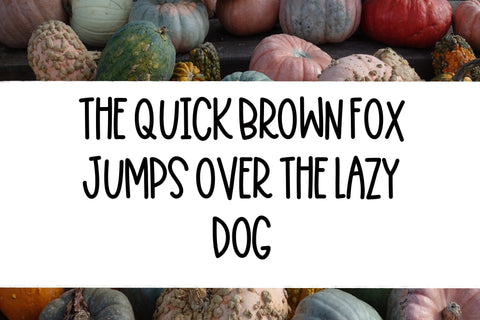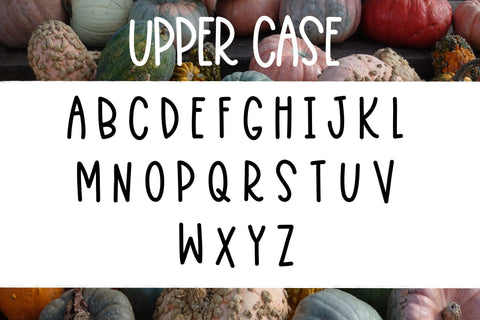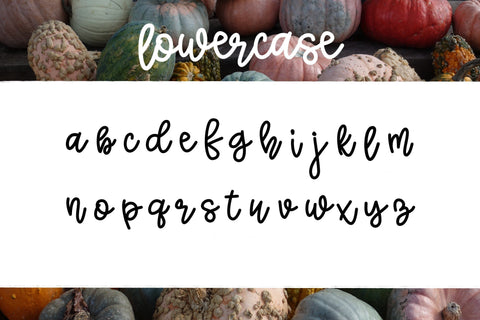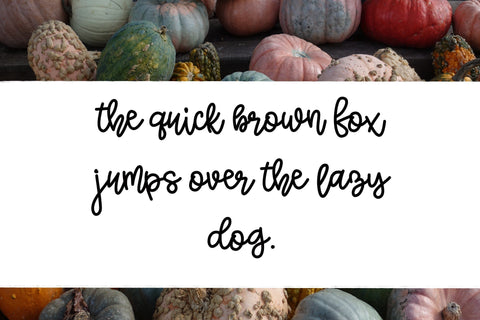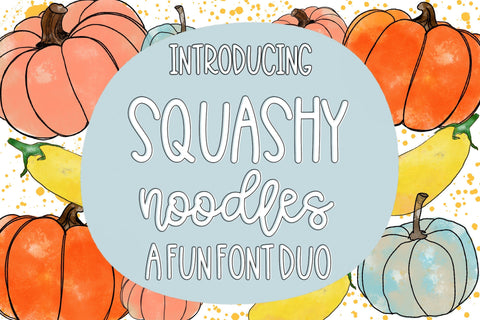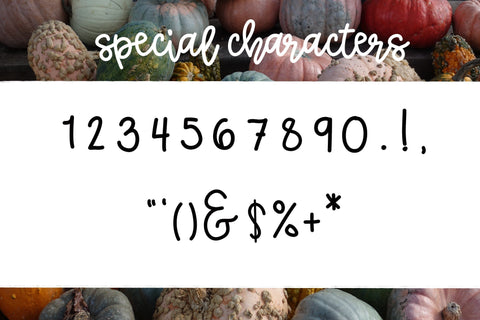
Squashy Noodles - A fun font duo
Introducing Squashy Noodles! A fun hand lettered font duo.
Use all uppercase for a hand written tall skinny font, and all lowercase for a beautiful handlettered script font.
This duo is great for decorating your own items, invitations, and using as an element in your own designs.